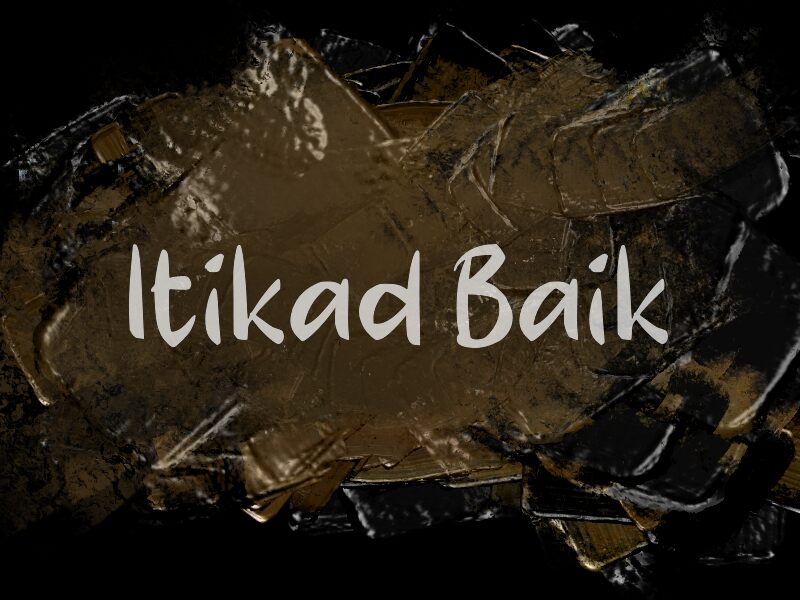
Itikad Baik
Itikad Baik font by wep is a free handwritten font that brings an expressive and organic feel to the table. Its casual tone and natural flow allows this font to mimic handwriting, letting you access that traditional look without additional effort. Maintain a classy, artful, and exquisite personality in all your projects with our newest resource.
Usage suggestion include personal signatures, personal branding presentations, advertisements, labels for foods or beverage containers especially those like tea or wine bottles and packaging designs for cosmetics like perfumes or soap bars.